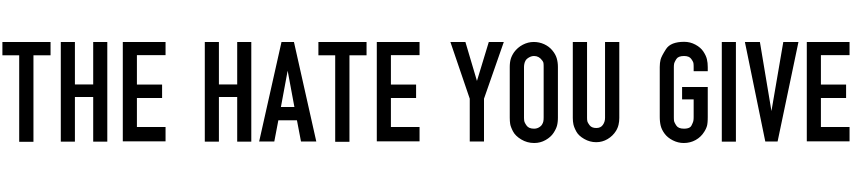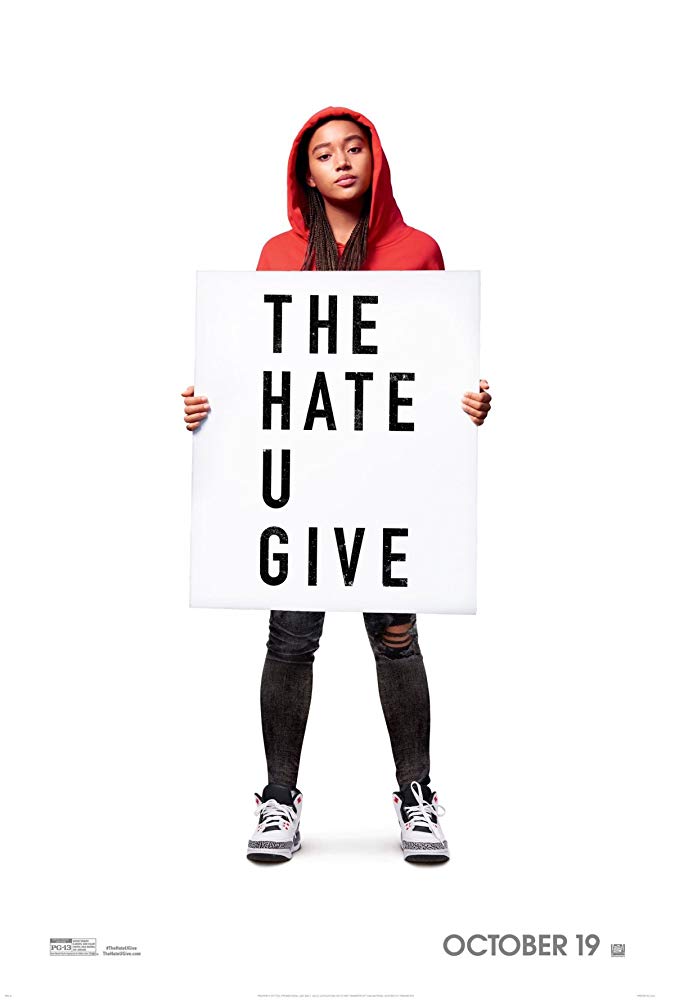
The Hate U Give Font
DramaThe Hate U Give is a 2018 American drama film based on the novel of the same name by Angie Thomas. It tells the story of a black teenager who witnesses the police shooting of her unarmed friend and becomes an activist in the Black Lives Matter movement.
The film title on the poster features a condensed sans-serif font similar to Linotype's Din 1451. Another alternative is TGL 0-1451 Engschrift by Peter Wiegel which is a free download and can be found in Fonts Used Section.